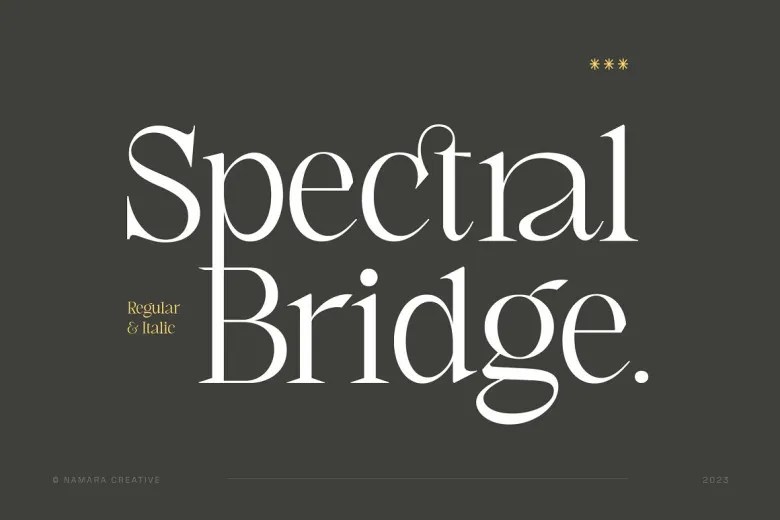
Spectral Bridge Font
Spectral Bridge is an elegant serif typeface designed to evoke a sense of timeless sophistication and opulence. Available in both Regular and Italic styles, this font offers endless design possibilities, allowing you to mix styles, alternates, and ligatures freely. Its refined design makes it perfect for projects ranging from branding and lettering to quote designs, printing materials, and beyond.
With its classic charm and luxurious feel, Spectral Bridge adds an elevated touch to any creative endeavor. Whether you’re working on high-end branding, editorial layouts, or custom quotes, this versatile typeface ensures your designs exude elegance and professionalism.